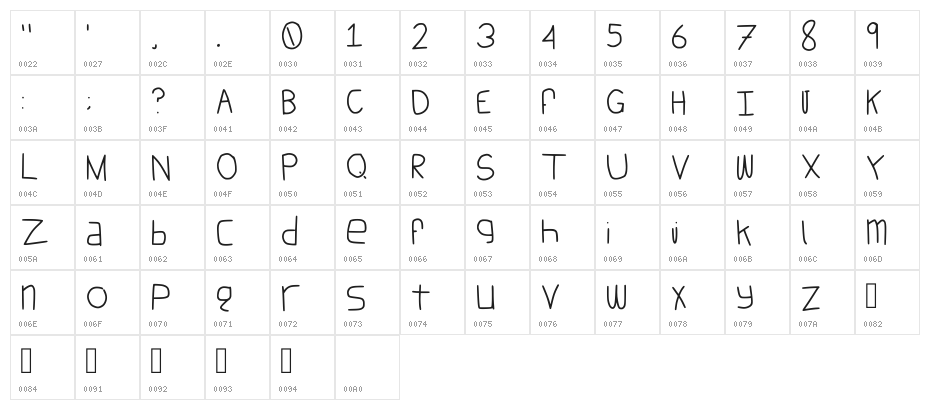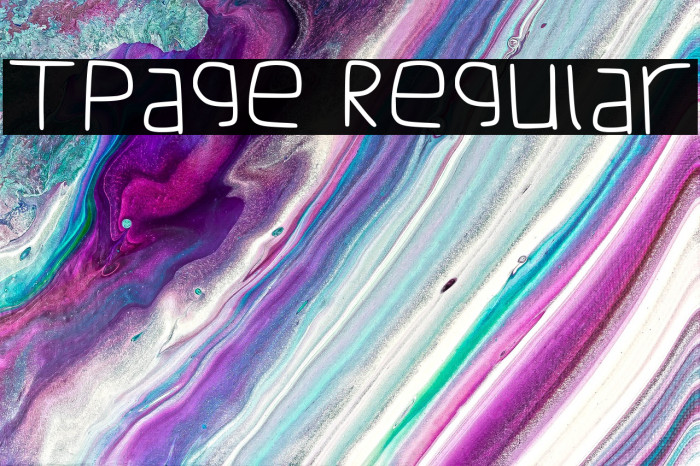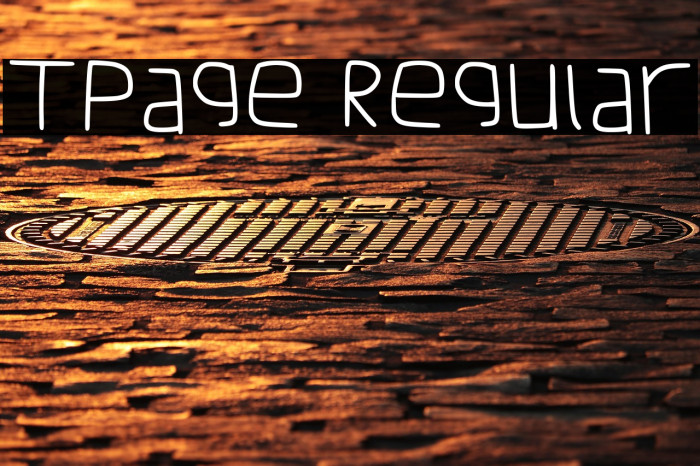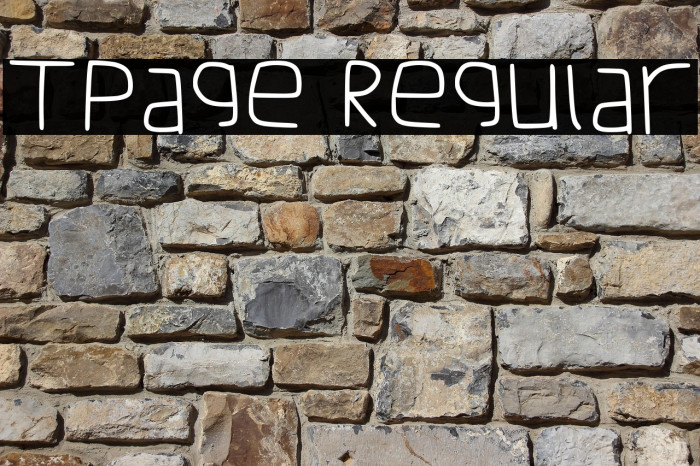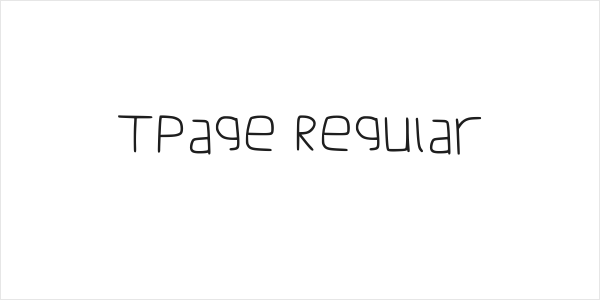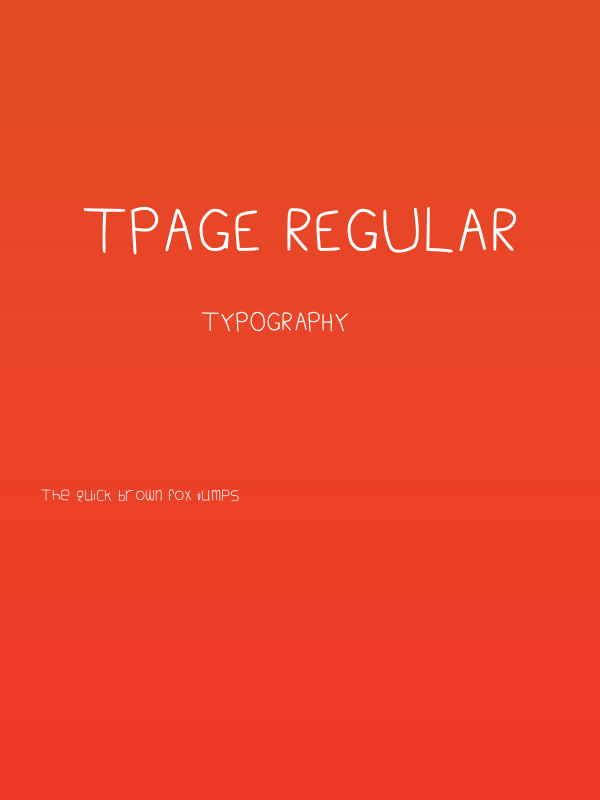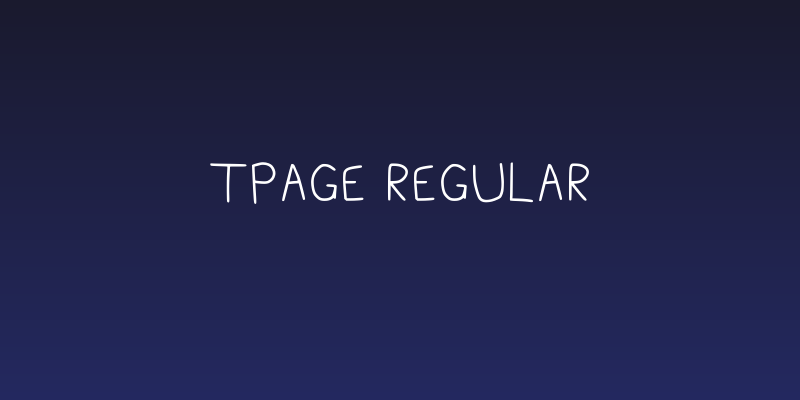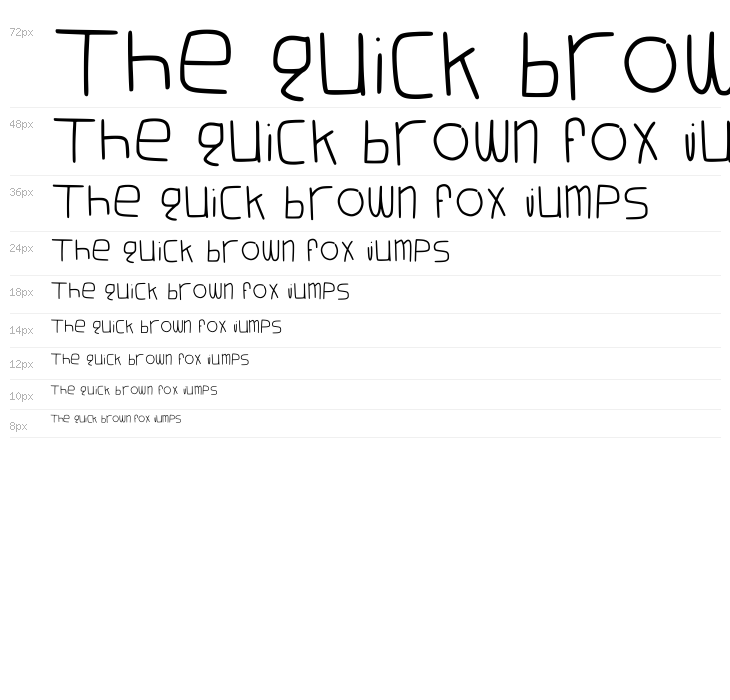
Tpage Regular Font
Tpage Regular Description
A playful, handwritten font with irregular strokes and a casual feel.
| Proposed Projects | Children's books, casual invitations, playful branding. |